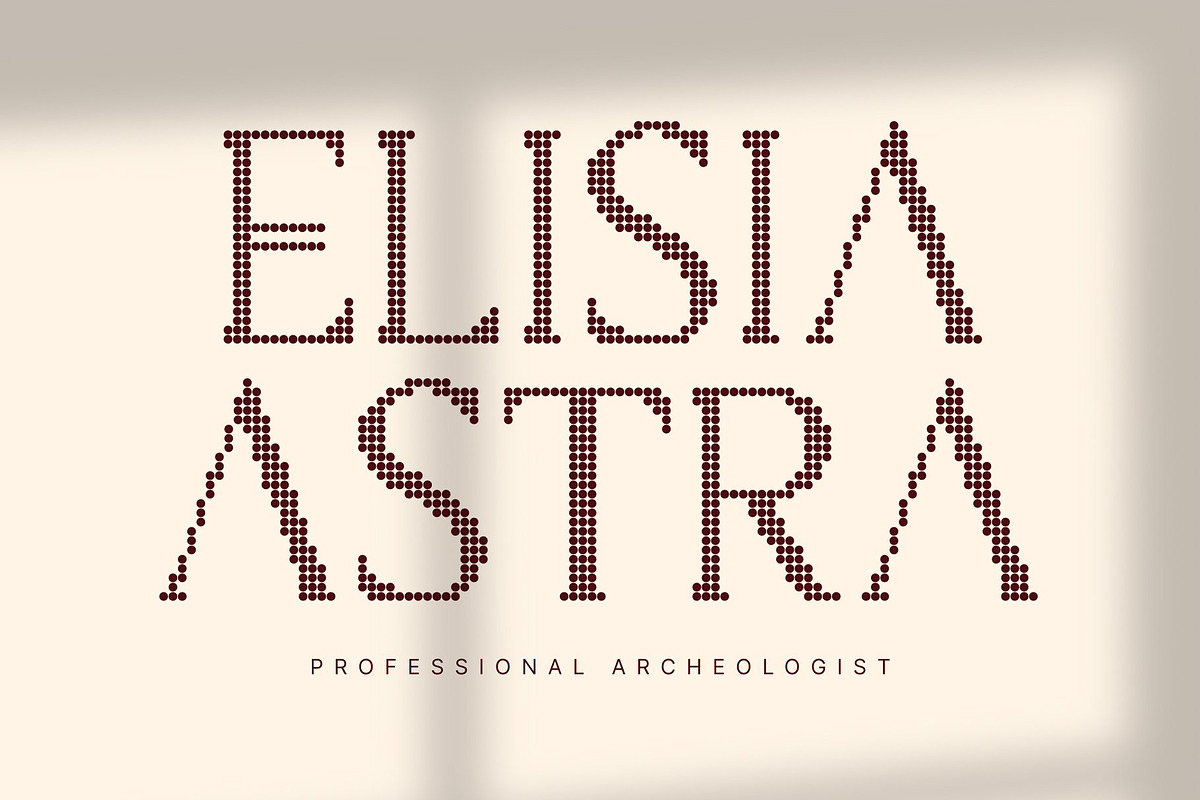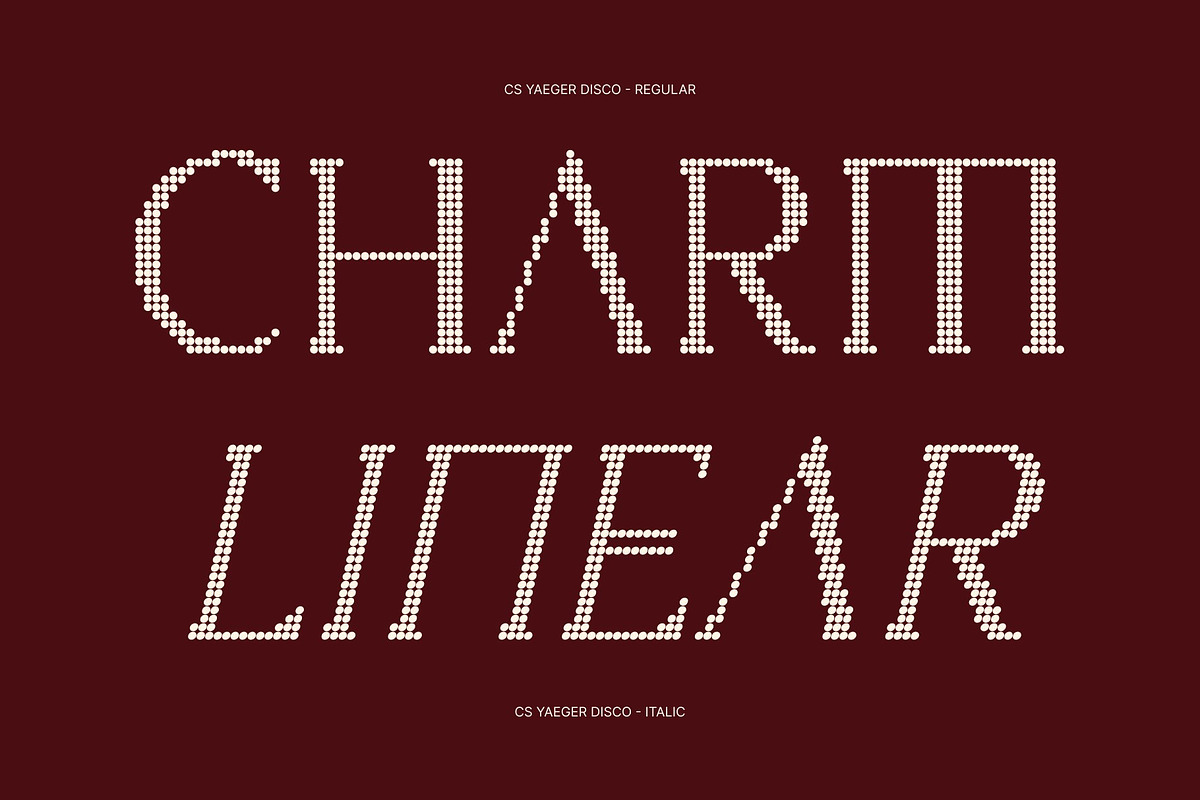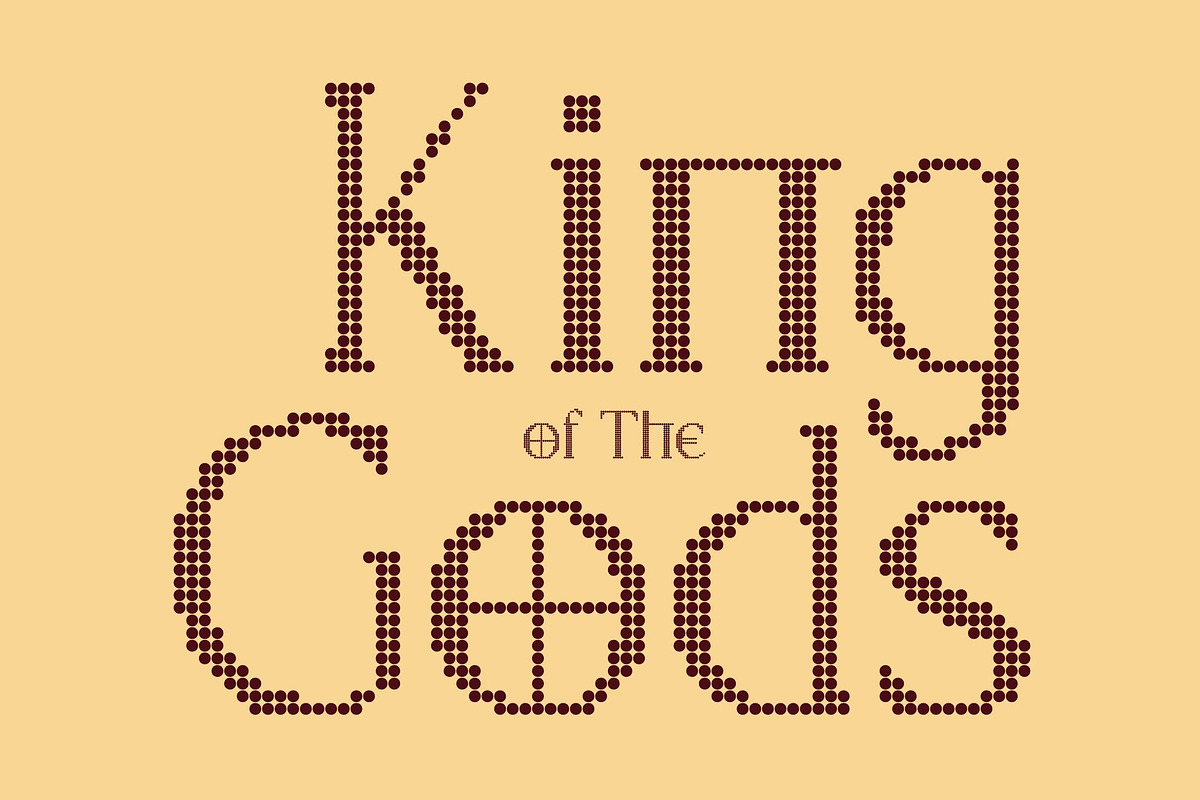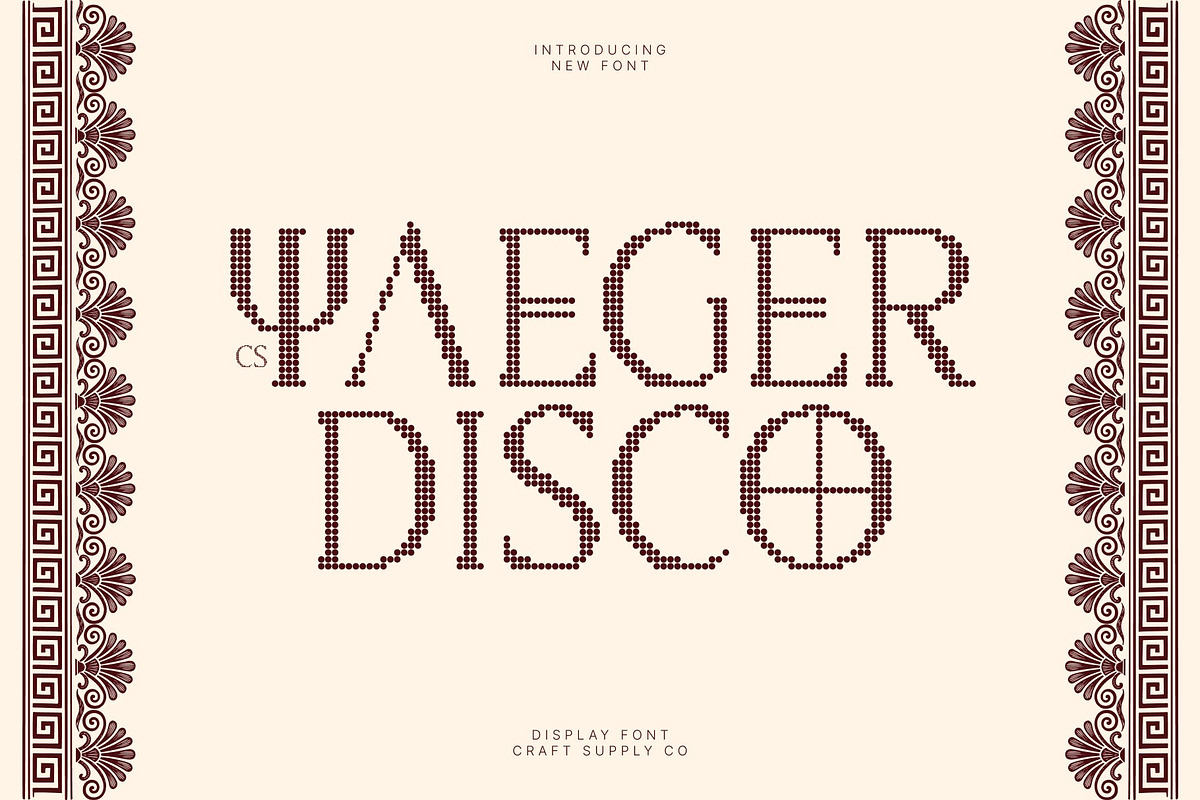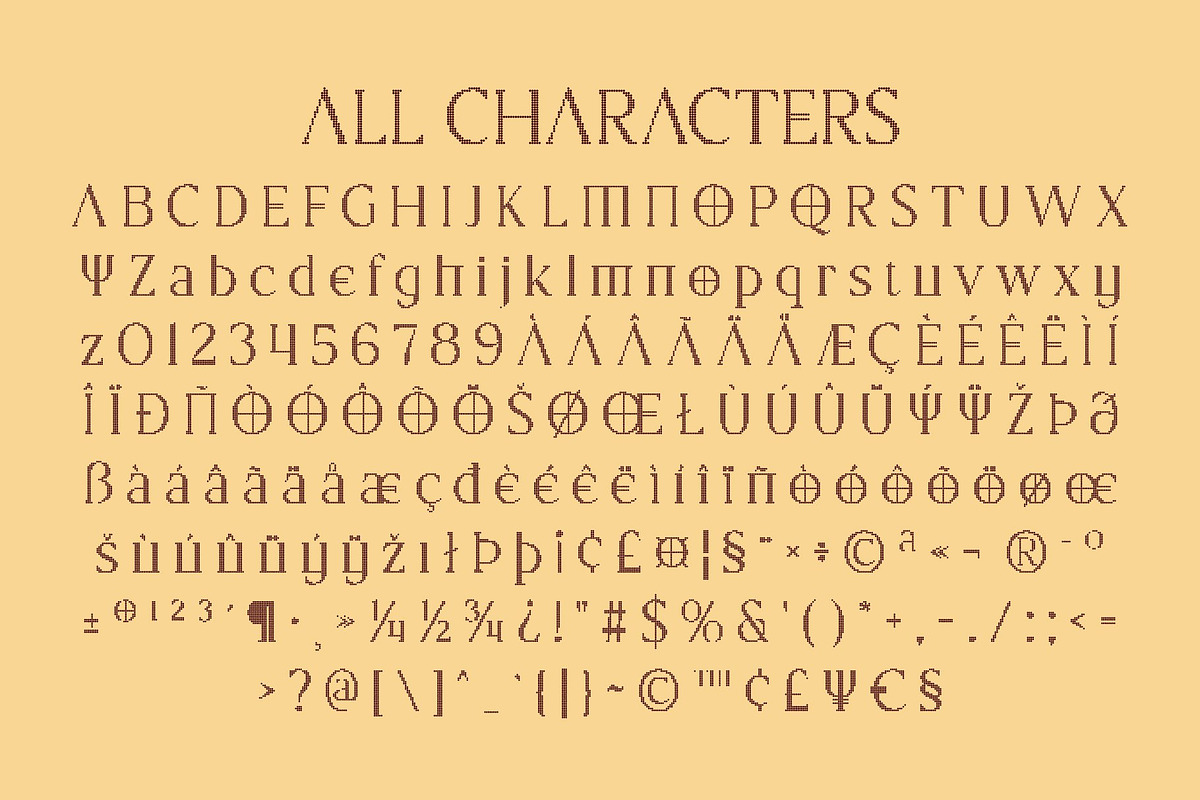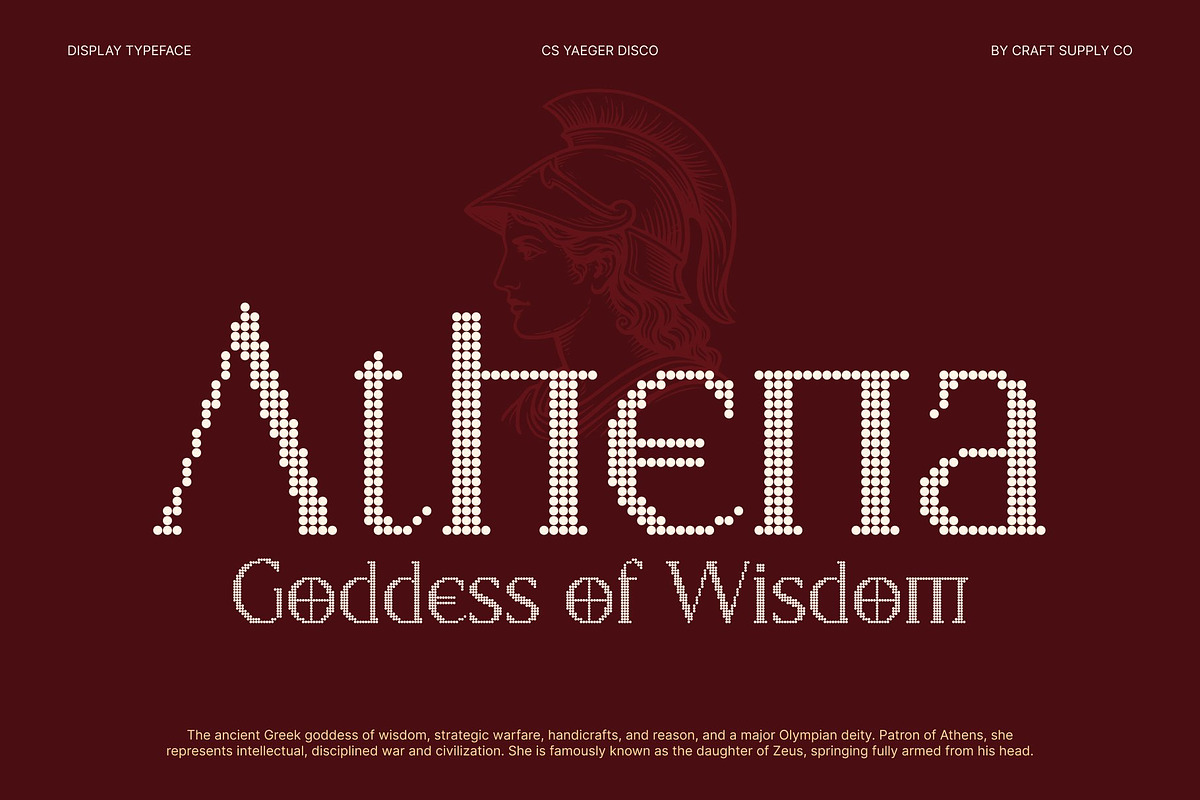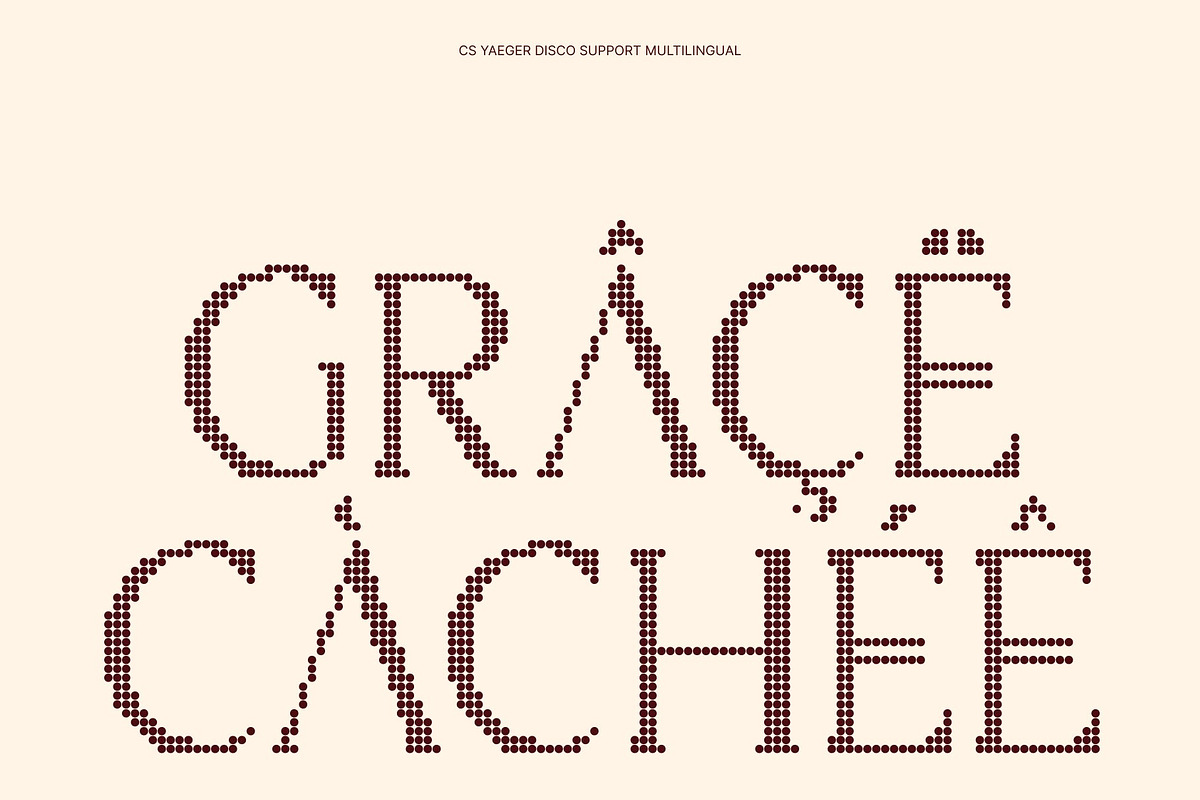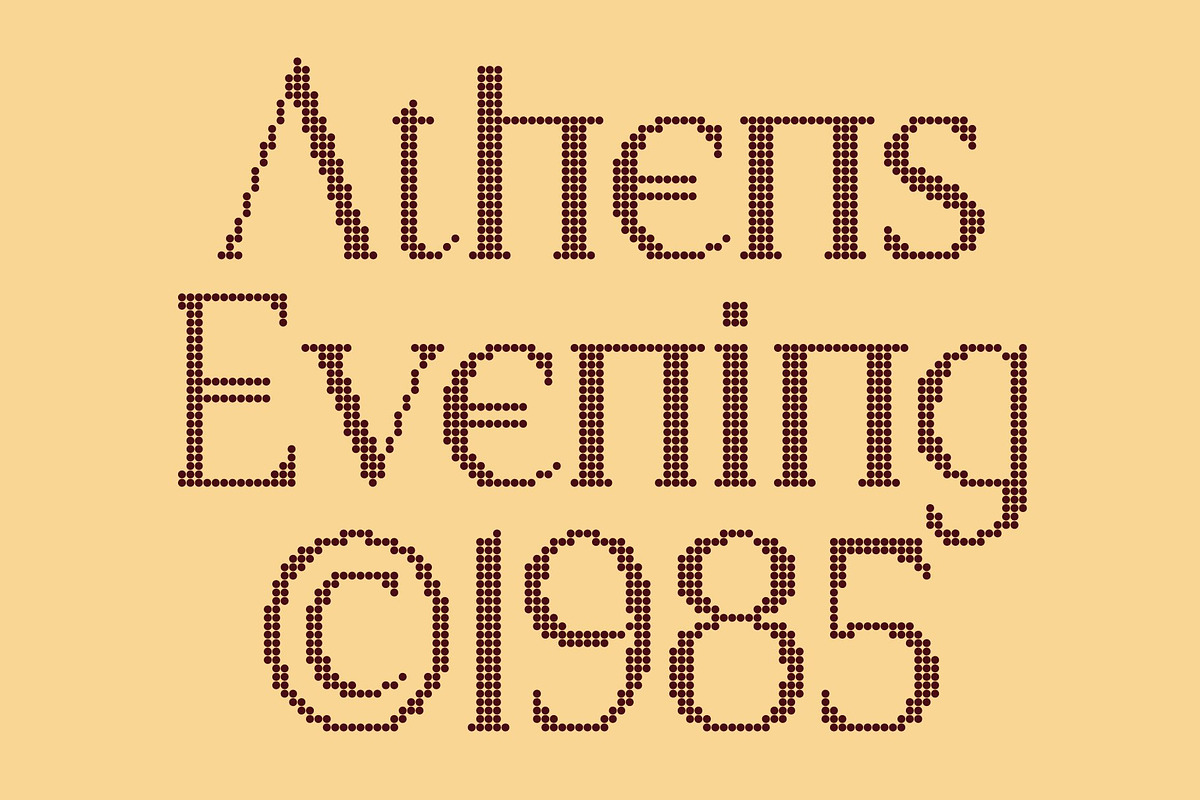
CS Yaeger Disco
CS Yaeger Disco – Classical Strength with Modern Refinement
Inspired by Ancient Greek Elegance This is an elegant serif display font inspired by the timeless beauty of ancient Greek letterforms. Strong serifs and sculptural shapes evoke historical grandeur while being thoughtfully reimagined for modern design. Every character carries a sense of heritage, balance, and authority.
Classic Forms with Contemporary Clarity Blending traditional craftsmanship with modern precision, this typeface transforms the spirit of Greek inscriptions into a clean and versatile display font. Its sharp serifs and defined proportions create a distinctive aesthetic graceful yet bold, classical yet fresh.
Perfect for Elegant and Cultural Design Ideal for luxury branding, editorial titles, museum exhibitions, and cultural projects, this font delivers timeless beauty with professional clarity. Its refined character elevates visual compositions and leaves a dignified, memorable impression.
A Harmony of Heritage and Modernity This font represents a dialogue between history and innovation. By bridging the ancient and the contemporary through balanced geometry and elegant rhythm, it helps designers convey tradition, intelligence, and refined creativity in every project.
CS Yaeger Disco Regular
CS Yaeger Disco Italic